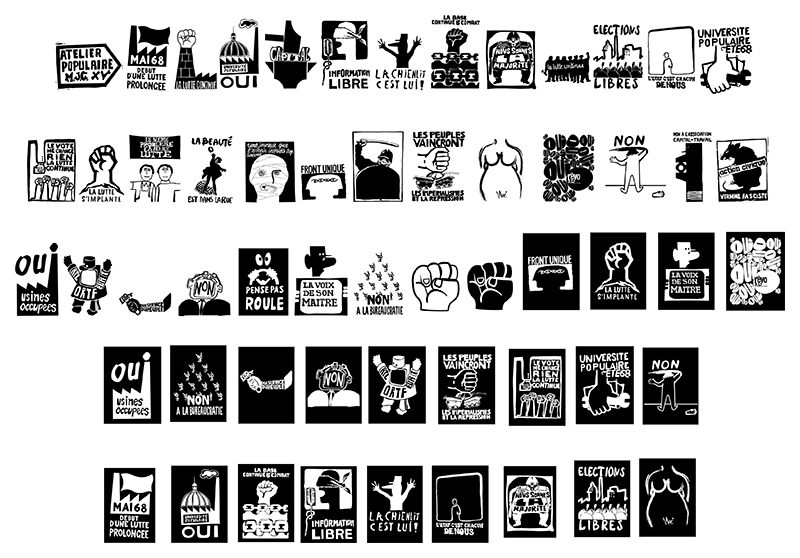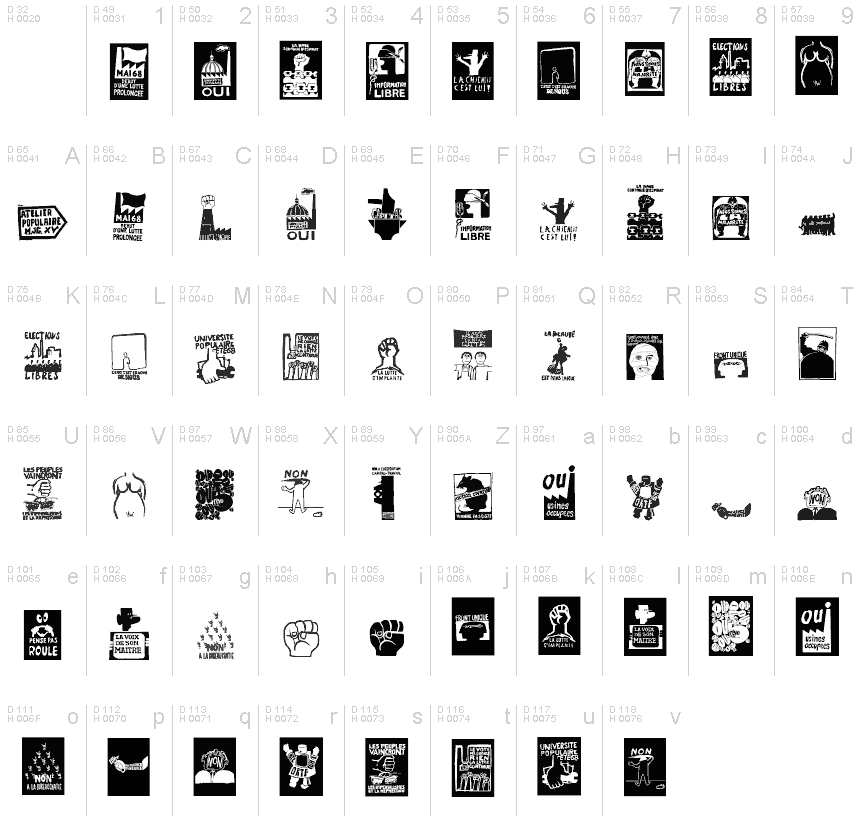
Mai1968 Regular
Mai1968 is a captivating dingbat font designed by Sandra Sisofo. Its striking symbols and abstract shapes exude a distinct, rebellious charm. The font's bold, angular forms lend themselves exceptionally well to bold, expressive designs, from political statements to punk-inspired aesthetics. Mai1968's versatility shines through its diverse repertoire of icons, from fists and flames to political slogans, making it a versatile choice for a wide range of applications, from album covers to protest posters.
The font's edgy, unconventional style sets it apart, making it a compelling option for designers seeking to convey a sense of defiance, activism, or counterculture. Its unique character set can be leveraged to create impactful, visually striking compositions that grab the viewer's attention and evoke a powerful emotional response.